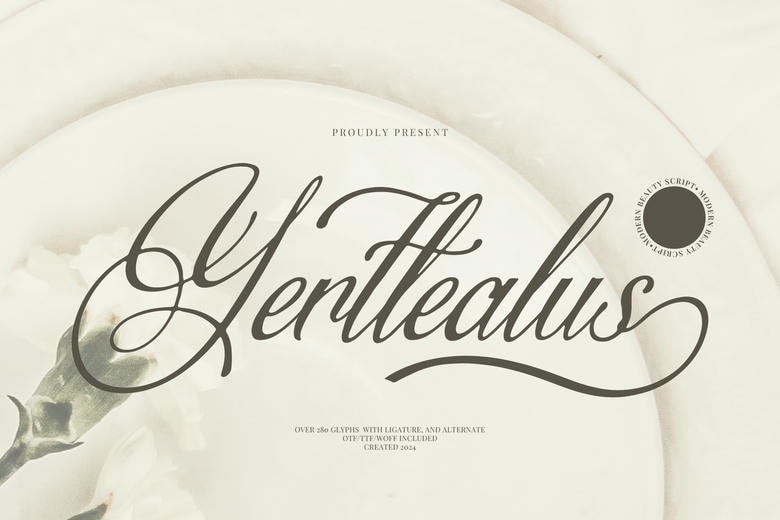
Yertlealus Font
Yertlealus is a types of script font where the letters are rather smooth and contain that flowing elegance. The design is more modern and this makes the font appropriate for beauty of invitation, logo, and any project. The look formed from the curves is completely new and classy!
Yertlealus Calligraphy Script Font